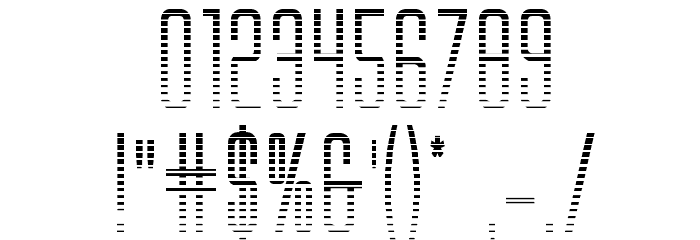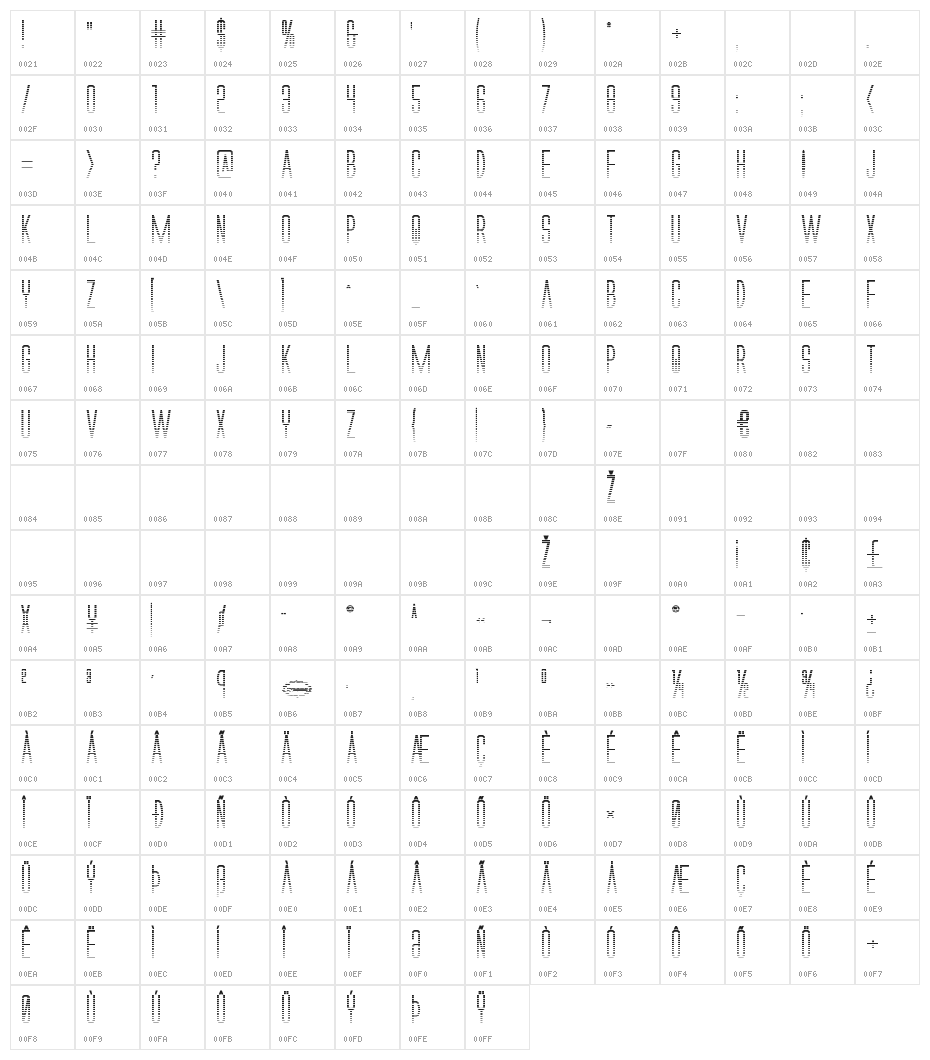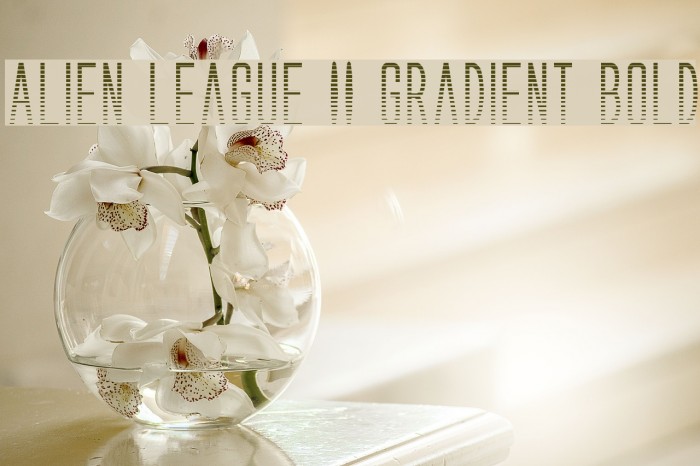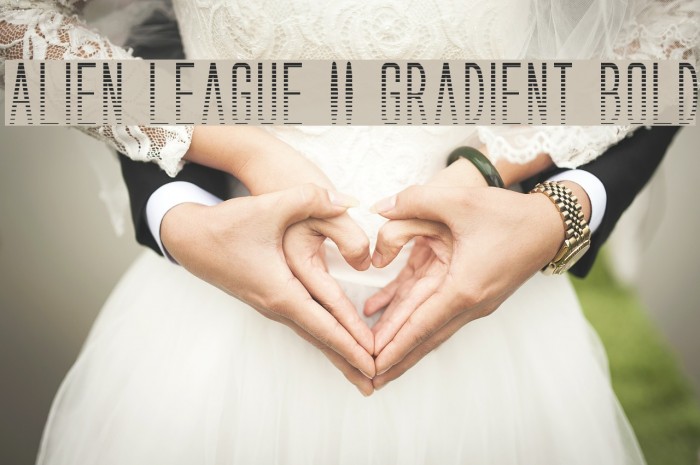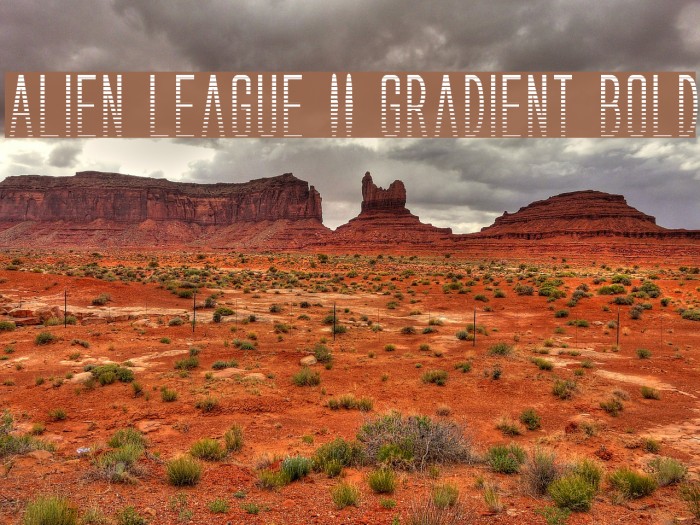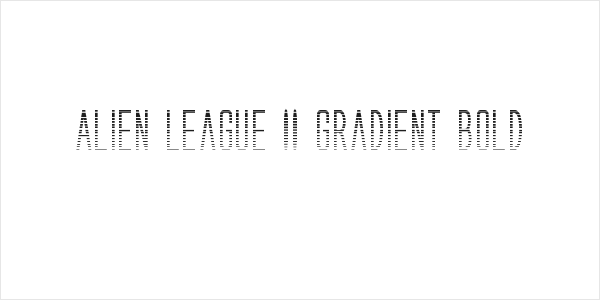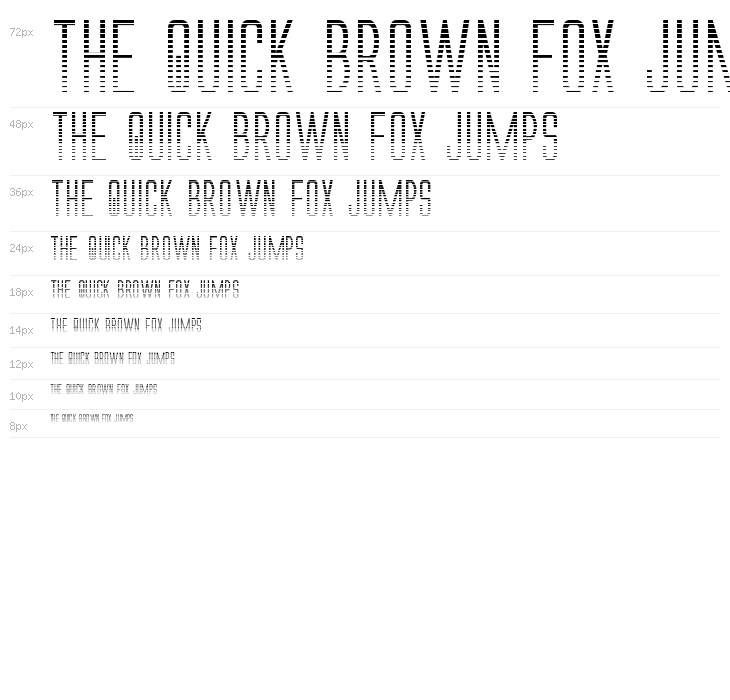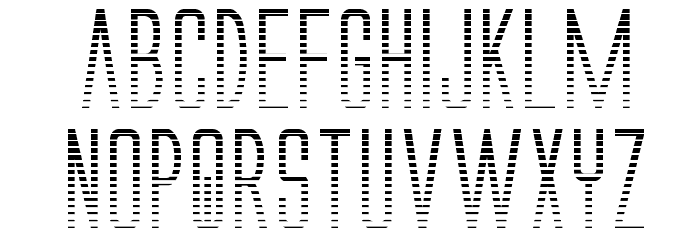
Alien League II Gradient Bold Font
Alien League II Gradient Bold Description
This font features a futuristic and digital aesthetic, characterized by a bold and geometric design. The letters are constructed with a series of horizontal lines, creating a gradient effect that adds depth and dimension. The uppercase and lowercase letters maintain a consistent style, with sharp angles and clean lines that convey a sense of modernity and innovation. The numerals and special characters follow the same design principles, ensuring uniformity across all glyphs. This font is ideal for projects that require a tech-savvy and contemporary look.